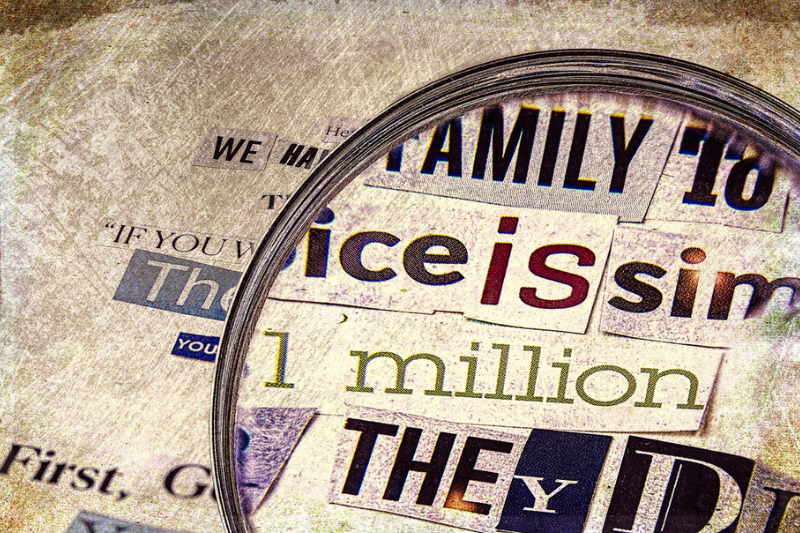
Ransom Note Text Font Generator
About the Ransom Note Text Font Generator
Ransom note fonts are a unique and distinctive style of typography inspired by the hand-cut letters commonly used in old-fashioned ransom notes. Irregular, mismatched letterforms characterize this style and are often associated with mystery, intrigue, and crime.
About Ransom Note Font
Persona Non-Grata is the font used in Ransom Note. Ransom Note fonts encompass many styles but typically feature letters cut from different sources such as newspapers, magazines, or other printed materials. The letters are irregular, varying in size, shape, and style. The ransom note font is intentionally cluttered and disorganized, giving it a chaotic and secretive appearance. This typography style is often used in creative projects, posters, or themed events to evoke a sense of intrigue and capture attention.
Ransom Note Font Generator
For enthusiasts and designers who want to experiment with the ransom note style or create custom designs with a mysterious touch, the Ransom Note Font Generator is a valuable tool. This online generator allows users to generate text like a ransom note by simply inputting their desired text. You can also use various options to customize the typography, including font variations, letter cutouts, and spacing.